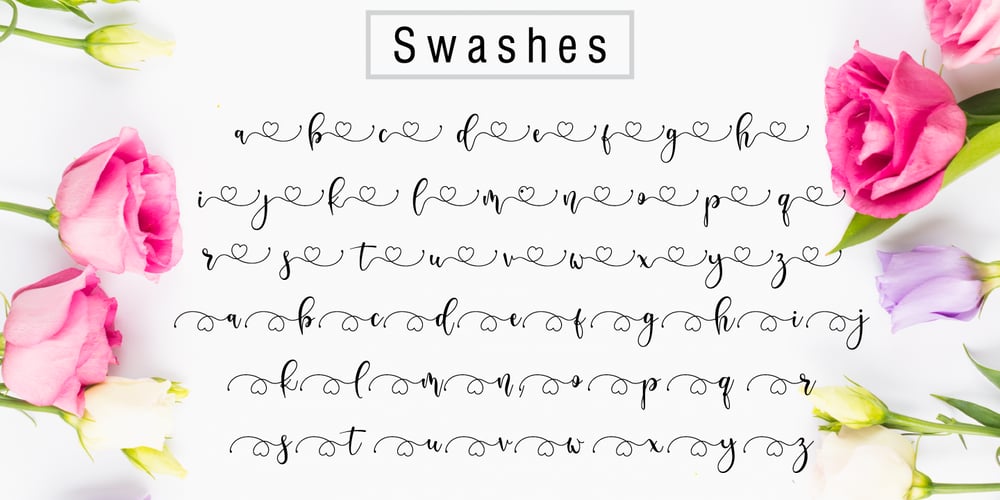
Delisha Font Family was designed by Novia Himatunnisa and published by Nissa Nana. Delisha contains 1 styles and family package options. Delisha is a beautiful script font. It has a classy, elegant, and modern look which can be used for logos, branding, invitations, stationary, wedding designs, social media posts, and every other design which needs a handwritten touch. What’s included: Delisha OTF Numeral and Punctuation Stylistic Alternates , Ligatures, and Swashes International Language Works on PC & Mac Simple installations Accessible in Adobe Illustrator, Adobe Photoshop, Adobe InDesign, even works on Microsoft Word. Thank you for your purchase! Hope you enjoy with our font! Best Regards, Nissa Studio